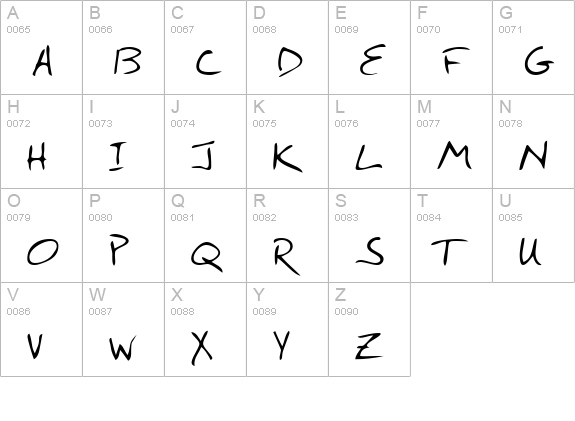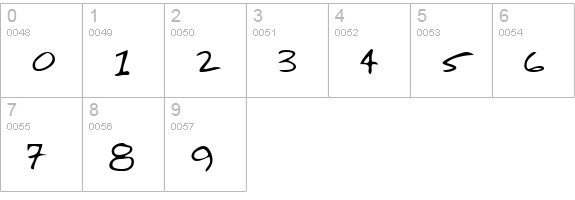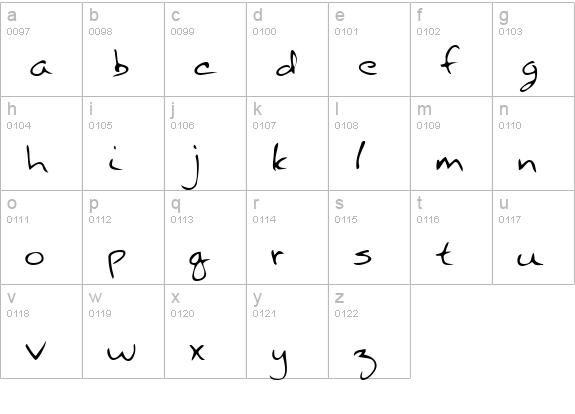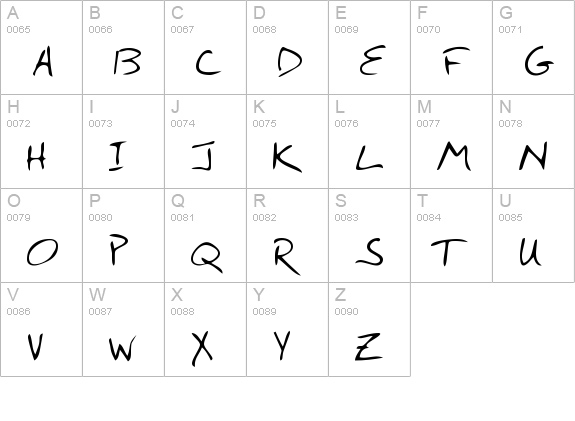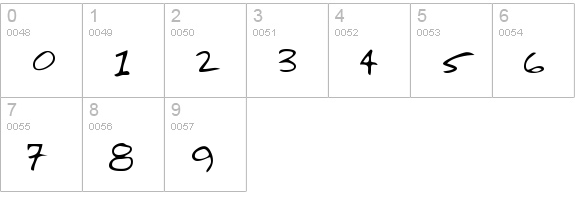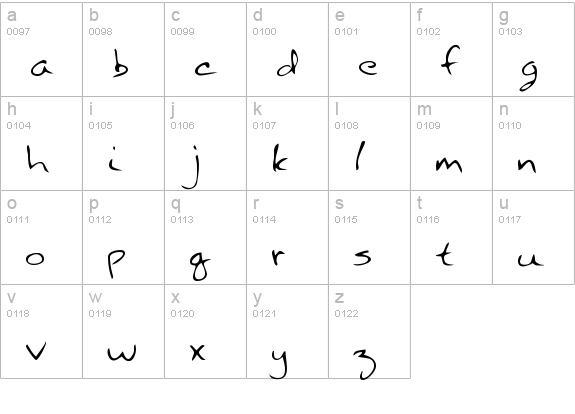
NettiesHand Regular is the standard, neutral variant in the NettiesHand typeface family \xE2\x80\x94 well suited to general body text, paragraphs, and standard typographic work.
NettiesHand Regular font exudes a charming and friendly vibe, perfect for adding a personal touch to any design project. Its flowing lines and natural, hand-drawn feel make it a versatile choice for a variety of creative endeavors. Whether you're looking to create invitations, greeting cards, or social media graphics, NettiesHand Regular is sure to make a statement. And the best part? NettiesHand Regular is available for free download at FontsMarket.com! Simply head over to the website to add this delightful font to your collection and start incorporating its whimsical charm into your designs today. Don't miss out on the opportunity to elevate your projects with NettiesHand Regular's unique and engaging aesthetic.